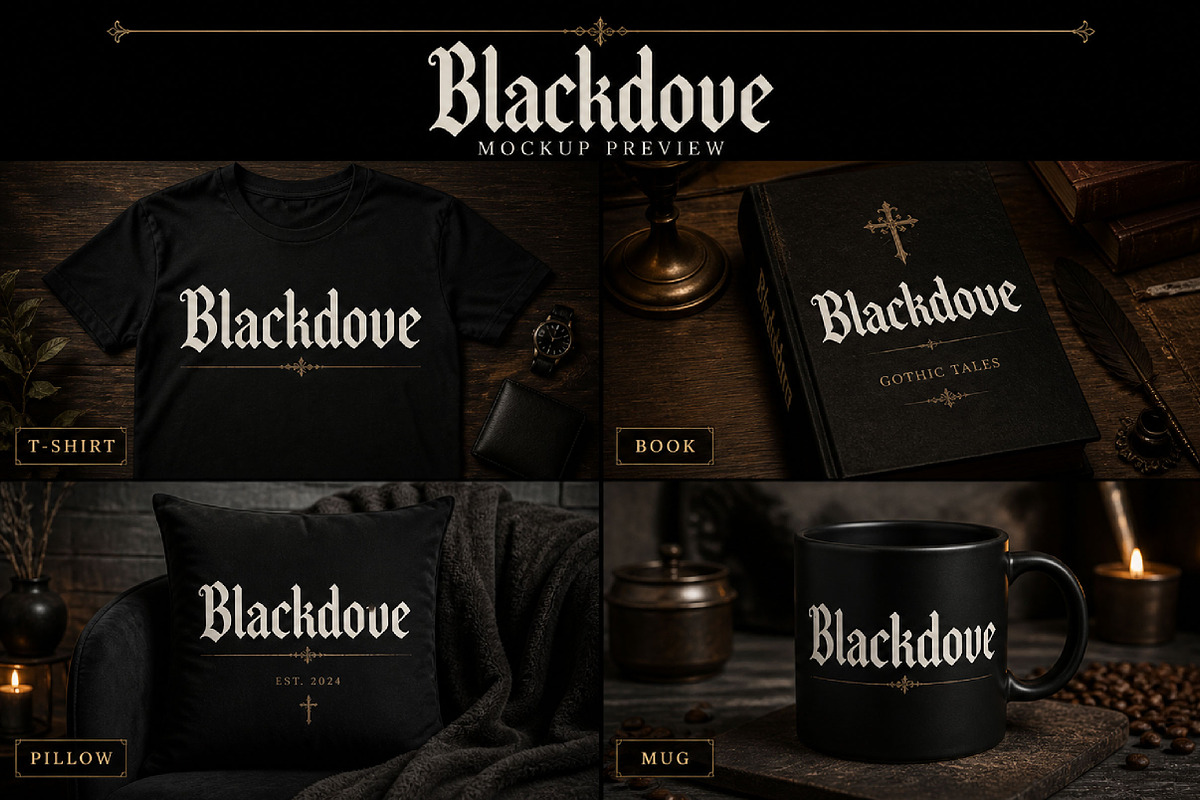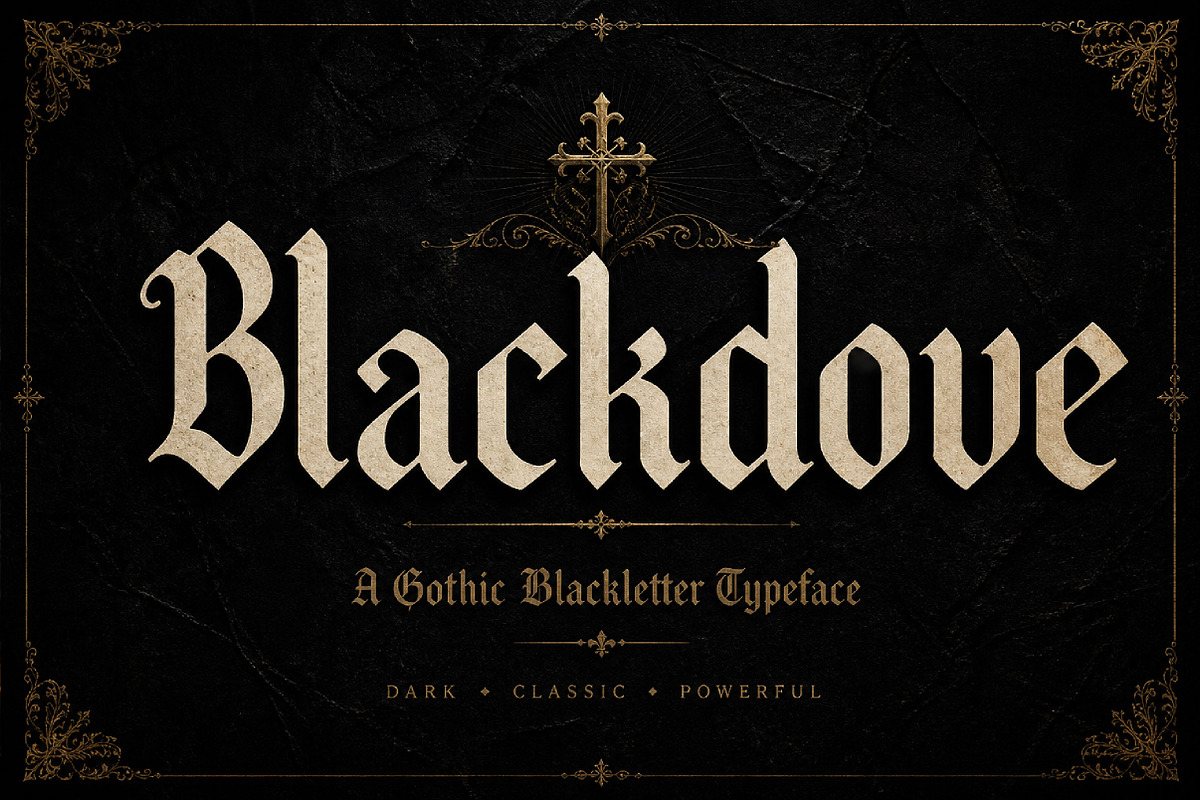
Blackdove
Blackdove – Elegant Gothic Display Font
Short Description
Blackdove is an elegant gothic display font with bold blackletter shapes, sharp edges, and a mysterious vintage style. Perfect for logos, posters, branding, tattoos, album covers, and dark luxury designs.
Full Description
Blackdove is a bold and elegant gothic display font designed to bring a dramatic, classic, and powerful look to your creative projects. Featuring sharp letterforms, strong blackletter-inspired shapes, and refined gothic details, this font creates a timeless visual identity with dark sophistication.
Its clean yet striking style makes Blackdove perfect for logos, branding, poster headlines, album covers, tattoo artwork, fashion labels, packaging, merchandise, and event graphics. The font blends medieval character with modern display readability, making it suitable for both print and digital projects.
Whether you are creating a gothic logo, vintage poster, dark music cover, or premium brand design, Blackdove delivers a confident and unforgettable typographic presence.
Logos and branding
Gothic posters
Album covers
Tattoo-style artwork
Luxury packaging
Fashion and apparel
Merchandise designs
Event graphics
Vintage headlines
Dark creative projects
Uppercase letters
Lowercase letters
Numbers and punctuation
Elegant gothic style
Sharp blackletter-inspired forms
Bold and dramatic appearance
Perfect for display use